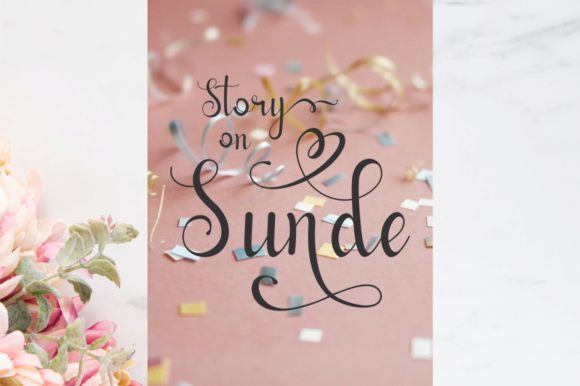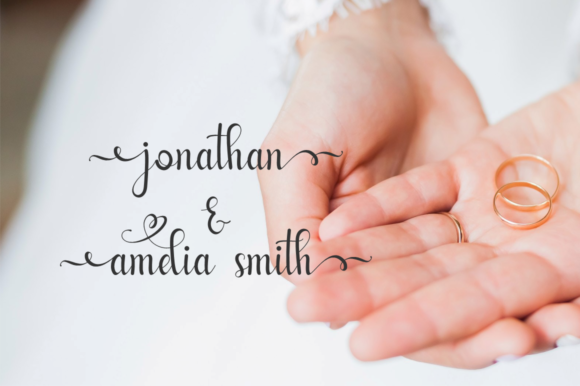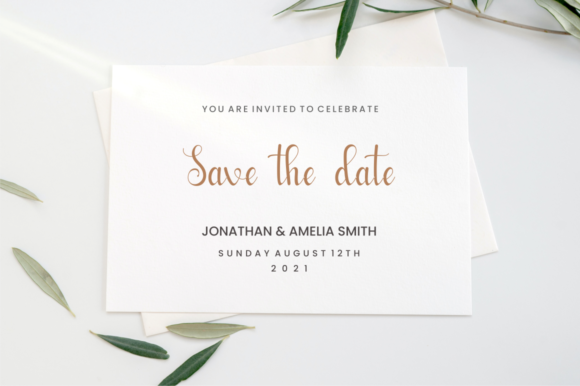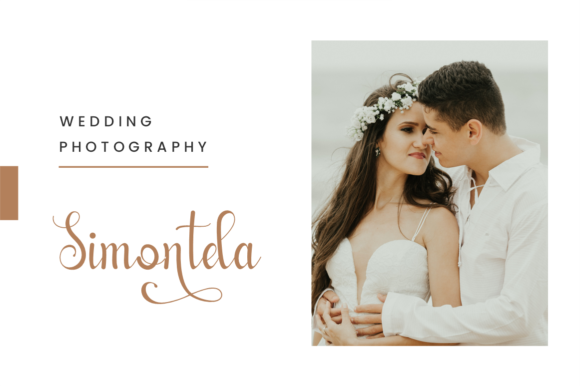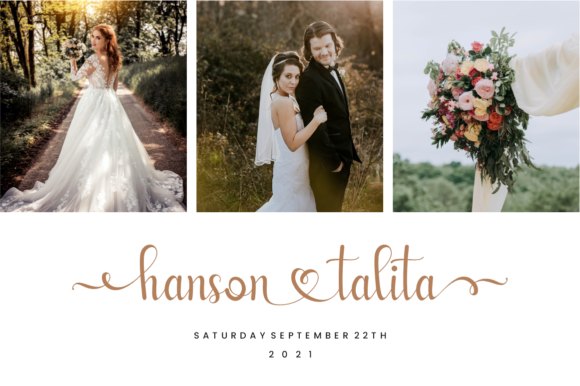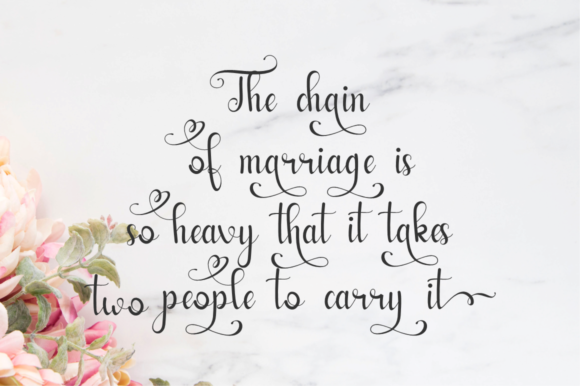
Introduction to Jonathan Smith Font Font
Fonts play a crucial role in design, and the Jonathan Smith Font font is a typeface that brings both character and versatility to any project. Whether you’re working on a branding project, a website, or a print design, the Jonathan Smith Font font offers a unique style that can elevate your work.
Jonathan Smith is a well balanced and highly detailed script font.
It is PUA encoded which means you can access all of the glyphs and swashes with ease Add it confidently to your favorite creations and let yourself be amazed by the outcome generated.
The Jonathan Smith Font font is more than just a typeface – it’s a design tool that helps you communicate your message with style and clarity. Its unique character set and versatile design make it suitable for a wide range of applications, from elegant invitations to bold headlines.
With its carefully crafted letterforms and balanced proportions, the Jonathan Smith Font font ensures readability and visual appeal across all mediums.
The Jonathan Smith Font font stands out with its unique design, exceptional readability, and versatility across various design applications.